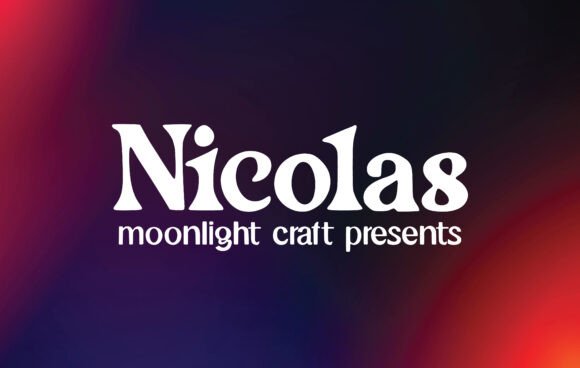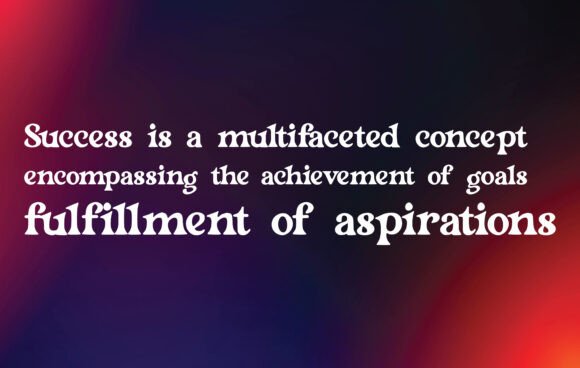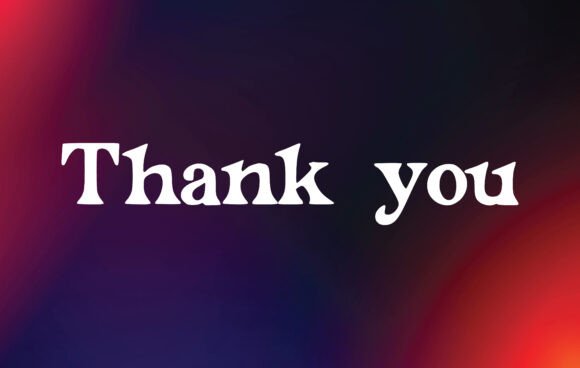
Nicolas Font: A Unique & Elegant Display Typography
About the Nicolas Font
Step up your design game with Nicolas Font, a font that exudes confidence and style. Nicolas is a lovely and beautiful font.This font has the potential to take your creative ideas to the highest level.It is the best choice for creating eye catching logos, branding and quotes.
Nicolas is ideally suited for headlines, short body text, logos, and branding applications where a strong visual impact is desired. Its elegant forms make it perfect for sophisticated projects, particularly in the fashion, beauty, or luxury goods sectors. Avoid using Nicolas for large blocks of text or UI elements; its decorative nature compromises readability in extended use.
Pairing Nicolas with a clean sans-serif like Open Sans for body copy creates a balanced and professional aesthetic. For a more playful feel, consider pairing it with a rounded geometric sans-serif such as Lato. A contrasting script font, used sparingly, could add a touch of vintage charm depending on the project’s needs.
The overall personality of Nicolas is sophisticated and elegant, conveying a sense of refined luxury. Its strong, yet graceful forms lend themselves to designs that communicate quality and timeless style.
Nicolas Font Usage Examples
Nicolas Font Example